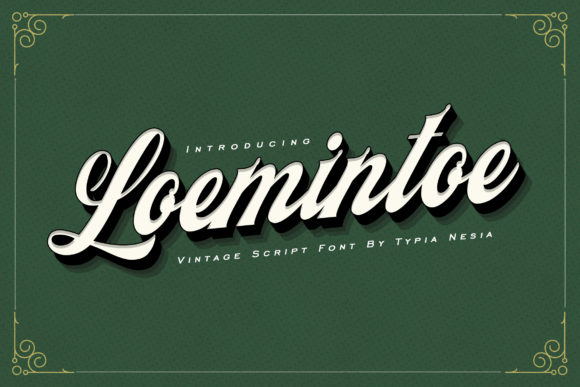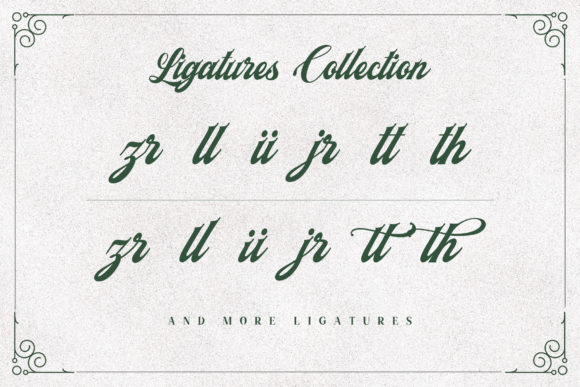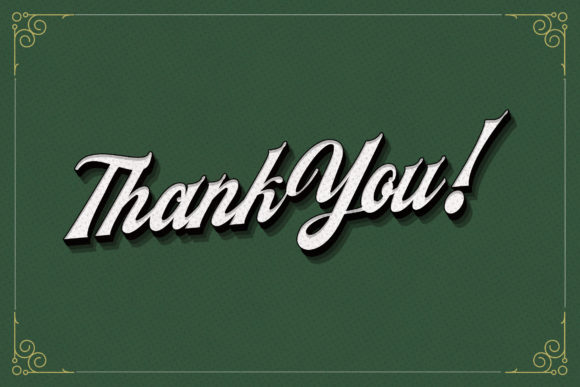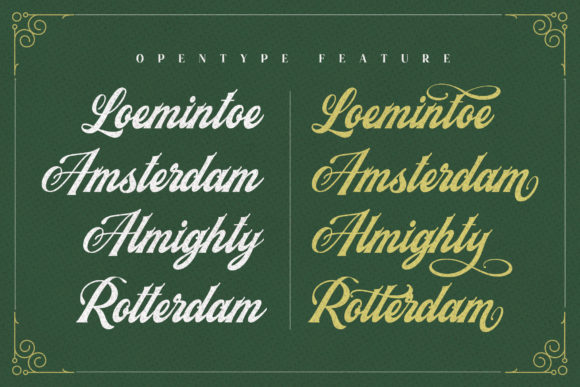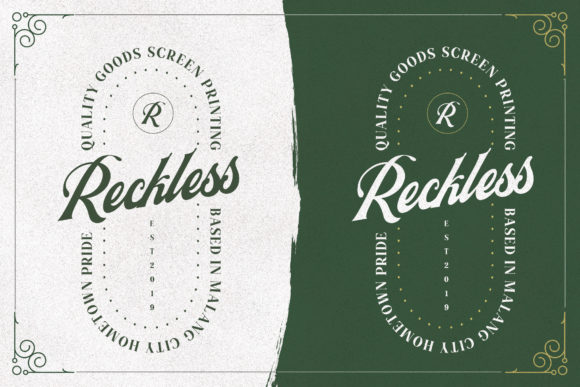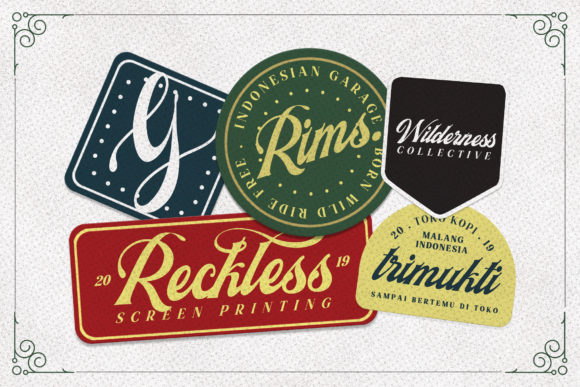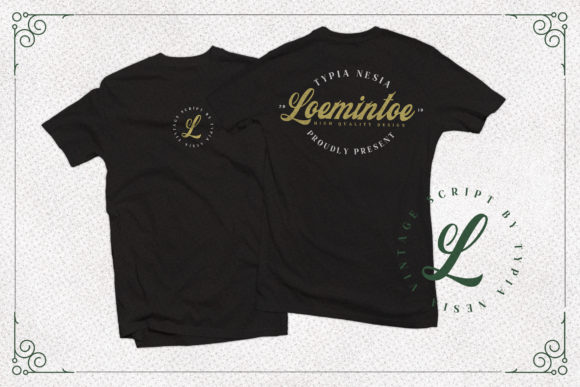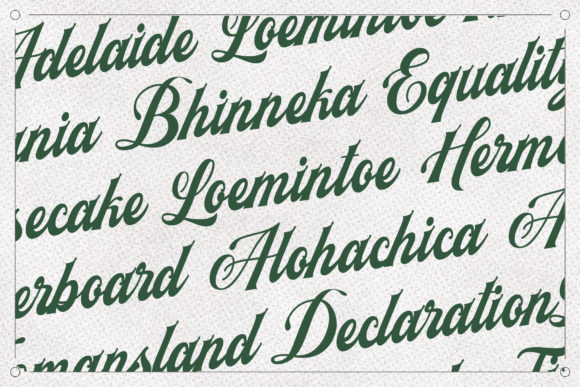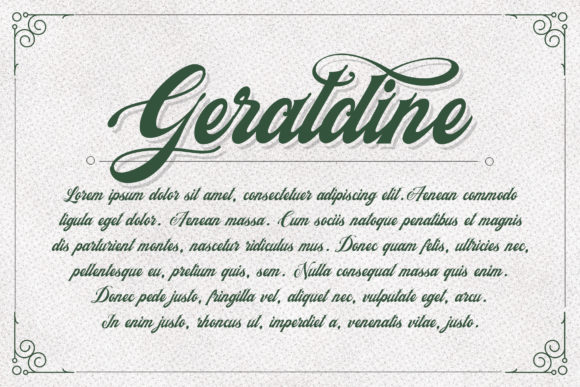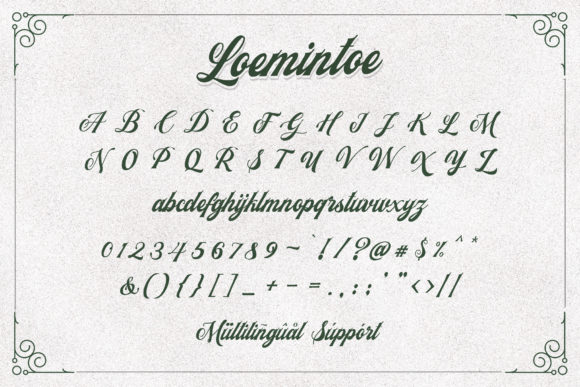
HomeScript FontsLoemintoe Font Script Fonts Loemintoe Font FacebookXPinterestWhatsApp Loemintoe Font Poster 2 Loemintoe Font Poster 3 Loemintoe Font Poster 4 Loemintoe Font Poster 5 Loemintoe Font Poster 6 Loemintoe Font Poster 7 Loemintoe Font Poster 8 Loemintoe Font Poster 9 Loemintoe Font Poster 10 Loemintoe Font Poster 11 About Loemintoe Font Loemintoe is a vintage script with a classy and playful vibe. Get inspired by its nostalgic look! DOWNLOAD NOW People also explored Dash Dotted Font Neue Sans Font Balance Font Belgium Catherine Font Roways Font Shintia Script Casual Cat Mandala Monogram Font Bernadette Signature Font Trapeze Font 285 0 TagsLoemintoe Font Previous articleEdwards FontNext articleTaufy Font LEAVE A REPLY Cancel reply Comment: Please enter your comment! Name:* Please enter your name here Email:* You have entered an incorrect email address! Please enter your email address here Website: Save my name, email, and website in this browser for the next time I comment. Personal Use Free Allea Sweet Personal Use Free Read more about this font Cline Personal Use Free Read more about this font Archipellago Personal Use Free Read more about this font Snaily Personal Use Free Read more about this font BLOG Best Fonts for T-Shirt Design – Top 2025 Picks In 2025, t-shirt design has become more than just fashion—it's a form of self-expression. Whether you're... Top 10 Handwritten Fonts That Elevate Your Designs The 10 Best Handwriting Fonts to Add Personality to Your Designs 5 Fonts That Will Dominate Design Trends in 2026